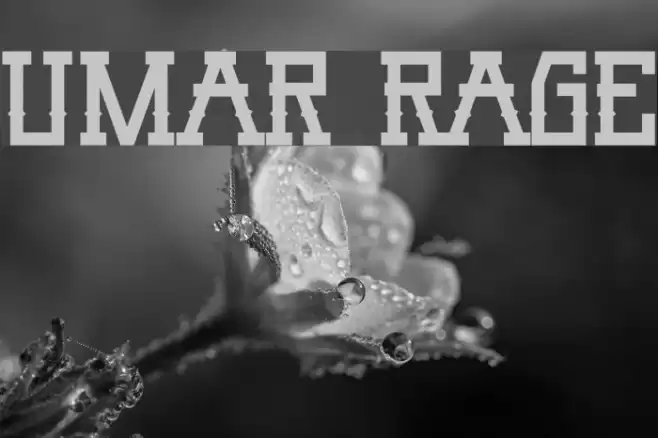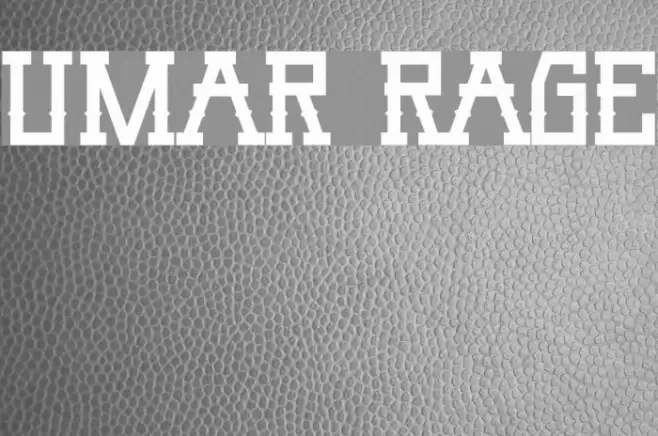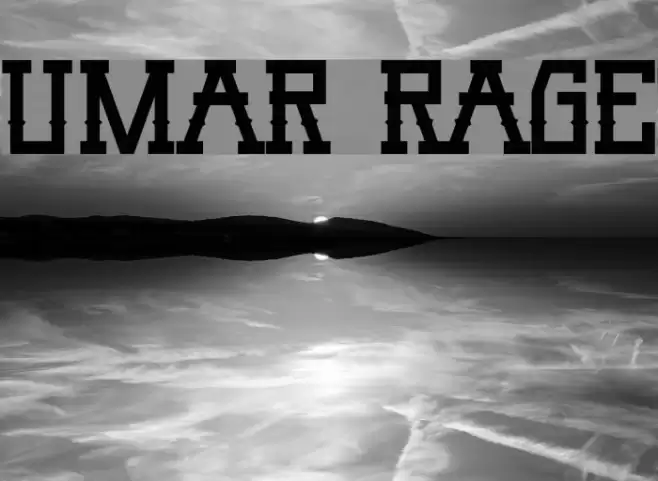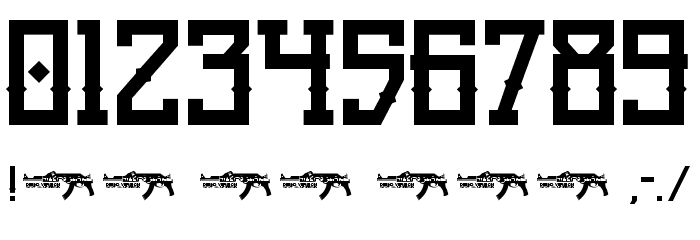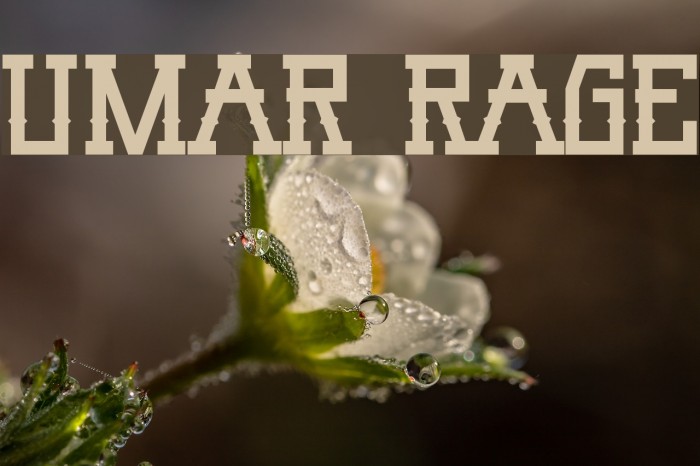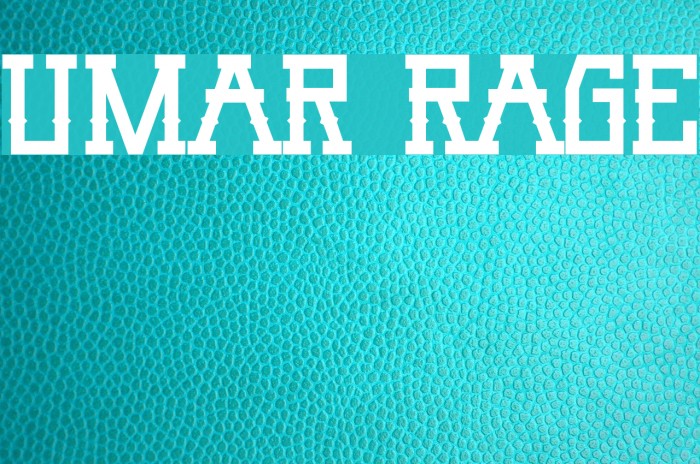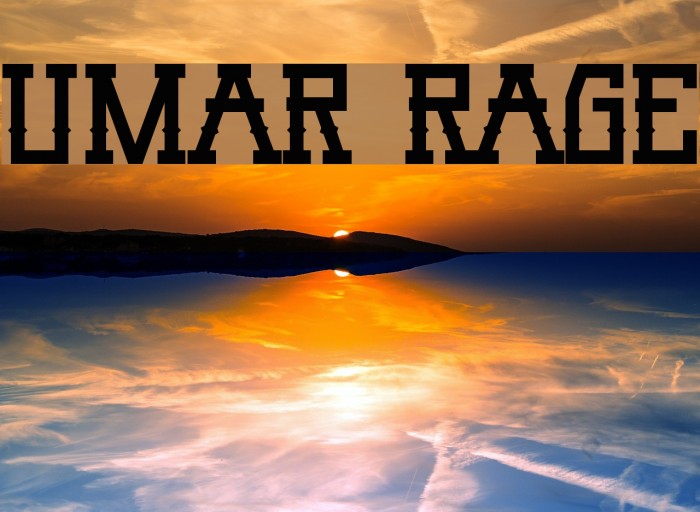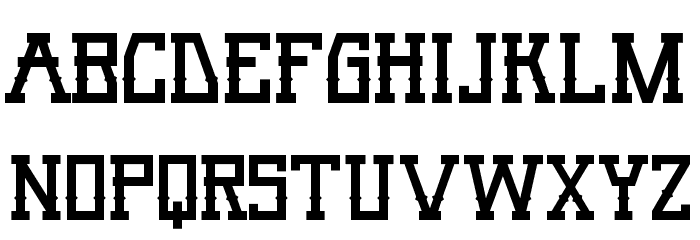
Umar Rage Font
Umar Rage Description
This font features a bold, geometric design with a strong, angular aesthetic. The characters are constructed with thick, block-like strokes that give a sense of strength and stability. The uppercase and lowercase letters maintain a consistent style, with sharp edges and a uniform height. The numerals are equally robust, matching the letterforms in weight and style. Special characters are included, maintaining the same bold and angular design. This font is ideal for projects that require a strong, impactful visual presence.
A bold, geometric font with angular, block-like characters from Uncategorized fonts.